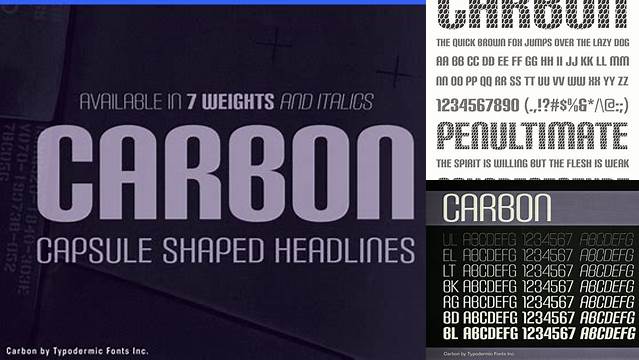
Carbon Font: Free Downloads & Usage Guide
Let's dive into the world of carbon font free download options! If you're looking to give your designs a modern, techy edge, carbon fonts are a fantastic choice. They evoke a sense of innovation, strength, and sleekness, making them perfect for a wide range of projects. In this article, we'll explore everything you need to know about carbon fonts, where to find them for free, and how to use them effectively. Whether you're a seasoned designer or just starting, you'll find valuable insights here. So, grab your creative hat, and let's get started!
Carbon Font Free Download: What You Need to Know
Exploring the Different Styles of Carbon Fonts
When considering a carbon font free download, remember the immense variety available. From minimalist and geometric to bold and futuristic, each style brings its unique flavor. Minimalist carbon fonts work great for clean, modern websites or apps, offering legibility and a high-tech feel without being overwhelming. Bolder fonts are perfect for headlines or logos, demanding attention and conveying strength. Consider the specific needs of your project: Does it require subtlety or a strong statement? The style of your carbon font should complement the overall design and message you're trying to convey. Experiment with different styles to find the perfect match that elevates your project.
Where to Find Free Carbon Fonts Online
How to Use Carbon Fonts in Your Design Projects
Once you've completed your carbon font free download, the real fun begins: incorporating it into your design projects. Carbon fonts are incredibly versatile and can be used in a variety of applications, from website headers and logos to print materials and social media graphics. When using carbon fonts, pay attention to readability. Pair them with simpler fonts for body text to ensure a balance between style and clarity. Experiment with different sizes, weights, and colors to see how the carbon font interacts with other design elements. Don't be afraid to get creative and push the boundaries, but always keep the overall message and target audience in mind. The goal is to use the carbon font to enhance the design, not overshadow it.
Tips for Choosing the Right Carbon Font
Choosing the right carbon font free download involves considering several factors. First, think about the mood and message you want to convey. A sleek, geometric font might be perfect for a tech startup, while a more rugged, industrial-style font could be ideal for a construction company. Consider the font's legibility, especially if it will be used for body text. Test it out in different sizes and contexts to ensure it remains readable. Also, pay attention to the font's kerning and spacing. Poorly kerned fonts can look unprofessional and detract from the overall design. Finally, think about how well the carbon font pairs with other fonts in your design. A good font pairing can elevate your project, while a bad one can make it look disjointed. So, take your time, experiment, and trust your instincts.
Carbon Fonts for Logos and Branding
For logos and branding, a carbon font free download can give your company a modern and tech-savvy image. The sharp, clean lines of carbon fonts can convey precision and innovation, which are valuable attributes for many brands. When using a carbon font in your logo, make sure it's scalable and readable at different sizes. A logo needs to look just as good on a business card as it does on a billboard. Consider customizing the font to make it unique to your brand. You can adjust the letter spacing, weight, or even add custom glyphs to create a truly distinctive logo. The key is to create a logo that's memorable, recognizable, and representative of your brand's values.
Carbon Fonts in Web Design: Best Practices
In web design, the right carbon font free download can significantly enhance the user experience. Carbon fonts can give your website a modern, futuristic look that appeals to tech-savvy users. However, it's important to use them judiciously. Overusing carbon fonts can make your website look cluttered and difficult to read. Use them sparingly for headings, navigation menus, or key call-to-action buttons. Ensure that the font is optimized for web use. Large font files can slow down your website's loading speed, which can negatively impact user experience and SEO. Use font formats like WOFF and WOFF2, which are specifically designed for web use. Also, consider using font-loading techniques to ensure that your fonts load quickly and smoothly.
Carbon Fonts in Print Design: Tips and Tricks
When using a carbon font free download in print design, there are a few additional considerations to keep in mind. Unlike web fonts, print fonts need to be high-resolution to ensure they look sharp and clear when printed. Use vector-based fonts, which can be scaled to any size without losing quality. Pay attention to the font's color and how it interacts with the background. Dark carbon fonts can look great on a light background, but they might not be as effective on a dark background. Consider using a lighter weight or a different color to make the font stand out. Also, be mindful of the paper stock you're using. Different paper stocks can affect how the font looks. Experiment with different paper types to find the one that best complements your carbon font.
Pairing Carbon Fonts with Other Fonts
A successful carbon font free download strategy often involves pairing your carbon font with other fonts to create a balanced and visually appealing design. Carbon fonts tend to be bold and attention-grabbing, so they often pair well with simpler, more understated fonts. A classic pairing is a carbon font for headings and a sans-serif font like Open Sans or Roboto for body text. This creates a clear visual hierarchy and ensures that the text is easy to read. Experiment with different font pairings to find the ones that best suit your design. Use online font pairing tools to get inspiration and see how different fonts look together. Remember, the goal is to create a harmonious and cohesive design that effectively communicates your message.
The Psychology Behind Carbon Fonts
Understanding the psychology behind a carbon font free download can help you use it more effectively in your designs. Carbon fonts evoke a sense of modernity, technology, and innovation. They can convey a feeling of precision, efficiency, and forward-thinking. This makes them ideal for brands and projects that want to project a cutting-edge image. However, carbon fonts can also come across as cold or impersonal if not used carefully. Balance them with warmer, more humanistic elements to create a more inviting and engaging design. Consider the target audience and their preferences when choosing a carbon font. What message do you want to send, and how can the font help you achieve that goal? By understanding the psychological impact of carbon fonts, you can use them to create designs that resonate with your audience.
Carbon Fonts and Modern Design Trends
Carbon font free download options are often at the forefront of modern design trends. As technology continues to evolve, carbon fonts have become increasingly popular in website design, branding, and advertising. Their clean, geometric lines and futuristic aesthetic align perfectly with the minimalist and tech-focused trends that are dominating the design world. Carbon fonts are often used in conjunction with other modern design elements, such as bold colors, abstract shapes, and dynamic animations. By staying up-to-date with the latest design trends, you can use carbon fonts to create designs that are both visually appealing and on-trend.
Creating a Futuristic Look with Carbon Fonts
If you're aiming for a futuristic look, a carbon font free download is an excellent starting point. These fonts inherently convey a sense of technological advancement and innovation. To enhance the futuristic feel, pair your carbon font with other elements that evoke the same mood. Use a dark color palette with neon accents, incorporate geometric shapes and patterns, and add subtle animations or transitions. Consider using a carbon font with a slightly distressed or textured look to give it a more industrial, cyberpunk feel. Remember, the key is to create a cohesive and immersive experience that transports your audience to a futuristic world.
The Impact of Carbon Fonts on User Experience
The impact of a carbon font free download on user experience (UX) can be significant. A well-chosen carbon font can enhance the user's perception of your brand or website, making it appear more modern and professional. However, a poorly chosen carbon font can have the opposite effect, making your design look cluttered and difficult to read. When using carbon fonts in UX design, prioritize legibility and readability. Use them sparingly for headings, subheadings, and key call-to-action buttons. Ensure that the font is large enough to be easily read on different screen sizes. Also, consider the font's contrast with the background. A high-contrast font will be easier to read than a low-contrast font. By carefully considering these factors, you can use carbon fonts to create a user experience that is both visually appealing and user-friendly.
Carbon Fonts and Accessibility Considerations
When considering a carbon font free download, accessibility is a crucial factor. Not all carbon fonts are created equal when it comes to accessibility. Some fonts may have poor legibility or low contrast, making them difficult for people with visual impairments to read. To ensure that your designs are accessible, choose carbon fonts that have clear, distinct letterforms and good spacing. Use a color palette that provides sufficient contrast between the text and the background. Also, consider using a font size that is large enough to be easily read by people with low vision. Test your designs with accessibility tools to identify any potential issues. By taking these steps, you can ensure that your designs are accessible to everyone, regardless of their abilities.
Maintaining Brand Consistency with Carbon Fonts
Maintaining brand consistency with a carbon font free download involves using the same font consistently across all your marketing materials. This helps to create a cohesive and recognizable brand identity. Choose a carbon font that aligns with your brand's personality and values. Use it consistently in your logo, website, social media graphics, and print materials. Create a style guide that outlines how the carbon font should be used, including its size, weight, color, and spacing. Share this style guide with all your designers and marketing team members to ensure that everyone is on the same page. By maintaining brand consistency, you can build trust and recognition with your audience.
Carbon Fonts for Mobile Applications
For mobile applications, a carbon font free download can give your app a sleek and modern look. However, it's important to choose a font that is optimized for mobile devices. Mobile screens are typically smaller than desktop screens, so you need to choose a font that is legible and readable at smaller sizes. Avoid using overly decorative or complex fonts, as these can be difficult to read on a small screen. Use a font size that is large enough to be easily read by users with different screen sizes and resolutions. Also, consider the font's impact on battery life. Some fonts may require more processing power to render, which can drain the device's battery. Choose a font that is efficient and doesn't consume excessive resources.
Carbon Fonts in Gaming Interfaces
In gaming interfaces, a carbon font free download can enhance the overall user experience and create a more immersive environment. Carbon fonts can give your game a futuristic, tech-driven look that appeals to gamers. Use them for menu text, in-game notifications, and dialogue boxes. Choose a font that is easy to read and doesn't distract from the gameplay. Consider the font's color and how it interacts with the game's background. A high-contrast font will be easier to read in a fast-paced gaming environment. Also, be mindful of the font's impact on performance. Some fonts may require more processing power to render, which can slow down the game. Choose a font that is optimized for performance and doesn't impact the game's frame rate.
The Future of Carbon Fonts in Design
The future of carbon font free download options in design is bright. As technology continues to advance, we can expect to see even more innovative and creative carbon fonts emerge. Designers are constantly experimenting with new techniques and technologies to create fonts that are both visually appealing and functional. We can also expect to see more carbon fonts that are specifically designed for web and mobile use, with features like variable font weights and improved legibility. As the demand for modern and tech-inspired designs continues to grow, carbon fonts will undoubtedly play a significant role in shaping the future of design.
Legal Considerations for Using Free Carbon Fonts
Before you complete any carbon font free download, it’s very important to consider the legal aspects. Just because a font is available for free doesn’t automatically mean you can use it however you want. Always check the license agreement that comes with the font. Some fonts are free for personal use only, while others allow commercial use. If you plan to use the font in a project that generates revenue, make sure you have the necessary commercial license. Ignoring these legal considerations can lead to copyright infringement issues, which can be costly and time-consuming to resolve. So, always read the fine print and ensure you’re using the font legally.
How to Install and Manage Your Carbon Fonts
After your successful carbon font free download, you'll need to install and manage your fonts properly. On most operating systems, installing a font is as simple as double-clicking the font file and clicking “Install.” However, managing your fonts effectively is crucial, especially if you have a large font library. Use a font management tool to organize your fonts, activate and deactivate them as needed, and prevent font conflicts. These tools can also help you preview fonts, identify duplicates, and repair corrupted font files. Good font management practices will save you time and frustration and ensure that your design projects run smoothly.
Common Mistakes to Avoid When Using Carbon Fonts
Even with a great carbon font free download, it’s easy to make mistakes if you're not careful. One common mistake is overusing carbon fonts. While they can add a modern touch, using them excessively can make your design look cluttered and overwhelming. Another mistake is failing to pair carbon fonts with other fonts effectively. A poor font pairing can make your design look disjointed and unprofessional. Always pay attention to legibility and readability. Don’t sacrifice clarity for style. Finally, avoid using carbon fonts in projects that don’t align with their aesthetic. Carbon fonts are best suited for modern, tech-related designs. Using them in a vintage or rustic project can look out of place. By avoiding these common mistakes, you can use carbon fonts to create stunning designs.
Carbon Font Alternatives for a Unique Look
Sometimes, even the best carbon font free download might not be the perfect fit. In such cases, exploring alternatives can help you achieve a unique look. Consider geometric sans-serif fonts like Montserrat or Lato, which offer a similar modern feel. Futuristic fonts like Exan or Orbitron can also be great alternatives. If you’re looking for something with a bit more personality, try a condensed sans-serif font like Bebas Neue or a display font with unique letterforms. Experiment with different font styles and pairings to find the one that best suits your project. Don’t be afraid to mix and match different fonts to create a truly distinctive design.
Customizing Carbon Fonts for Your Brand
A great way to make your brand stand out is by customizing your carbon font free download. Customizing a font involves modifying its letterforms, spacing, or other characteristics to create a unique and personalized look. You can adjust the font's weight, slant, or width to better align with your brand's personality. Consider adding custom glyphs or ligatures to create a more distinctive and memorable font. You can also modify the font's kerning and tracking to improve its legibility and readability. If you don’t have the skills to customize a font yourself, you can hire a professional font designer to do it for you. Customizing your carbon font can help you create a brand identity that is truly unique and unforgettable.
Carbon Fonts and the Future of Typography
Carbon font free download options are indicative of broader trends in typography, which is constantly evolving to meet the needs of designers and users. The future of typography will likely see even more innovative and versatile fonts emerge, with features like variable font weights, responsive designs, and improved accessibility. We can also expect to see more fonts that are specifically designed for use in virtual reality and augmented reality environments. As technology continues to advance, typography will play an increasingly important role in shaping the way we interact with digital content. By staying up-to-date with the latest trends in typography, you can ensure that your designs are always fresh, modern, and effective.
Integrating Carbon Fonts into Your Design Workflow
To seamlessly integrate a carbon font free download into your design workflow, start by organizing your font library effectively. Use a font management tool to activate and deactivate fonts as needed, and create a system for categorizing your fonts based on their style and purpose. When starting a new design project, take the time to research and select the right carbon font for the job. Experiment with different font pairings and styles to find the one that best suits your design. Create a style guide that outlines how the carbon font should be used, including its size, weight, color, and spacing. By following these steps, you can ensure that your carbon fonts are always readily available and that you're using them effectively in your designs.
Troubleshooting Common Issues with Carbon Fonts
Even with a great carbon font free download, you might encounter some issues. One common issue is font conflicts, which can occur when two fonts with the same name are installed on your system. To resolve this issue, use a font management tool to identify and resolve the conflict. Another issue is corrupted font files, which can cause fonts to display incorrectly or not at all. To fix this issue, try downloading a fresh copy of the font from a reputable source. If you're still having trouble, try clearing your font cache or restarting your computer. By troubleshooting these common issues, you can ensure that your carbon fonts are always working properly.
Measuring the Success of Your Carbon Font Choices
Measuring the success of your carbon font free download choices involves evaluating how well the font contributes to your design goals. Are users able to easily read and understand the text? Does the font enhance the overall aesthetic of the design? Does it align with your brand's personality and values? To measure the success of your font choices, you can conduct user testing, gather feedback from stakeholders, and track metrics like website bounce rate and conversion rates. By analyzing this data, you can determine whether your carbon font choices are effective and make adjustments as needed.
Resources for Staying Updated on Carbon Font Trends
Staying updated on carbon font free download trends is essential for creating designs that are fresh and modern. Follow design blogs and websites like Design Milk, Creative Bloq, and Smashing Magazine to stay informed about the latest font releases and design trends. Subscribe to newsletters from font foundries like MyFonts and FontShop to receive updates on new fonts and special offers. Attend design conferences and workshops to learn from industry experts and network with other designers. By staying connected to the design community, you can ensure that you're always aware of the latest carbon font trends and innovations.
Carbon Fonts and Their Role in Visual Hierarchy
Carbon fonts play a crucial role in establishing visual hierarchy within a design. A well-chosen carbon font free download can guide the viewer's eye and highlight important information. Use carbon fonts for headings and subheadings to create a clear hierarchy and make it easy for users to scan the content. Use different font sizes and weights to emphasize key points and call-to-action buttons. Pair carbon fonts with simpler fonts for body text to ensure that the text is easy to read and doesn't compete with the headings. By using carbon fonts strategically, you can create a design that is both visually appealing and easy to navigate.